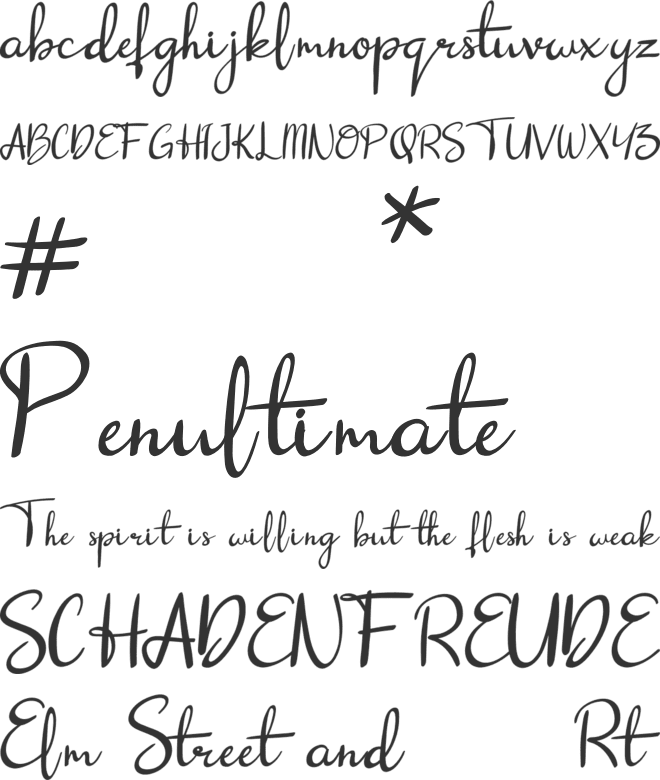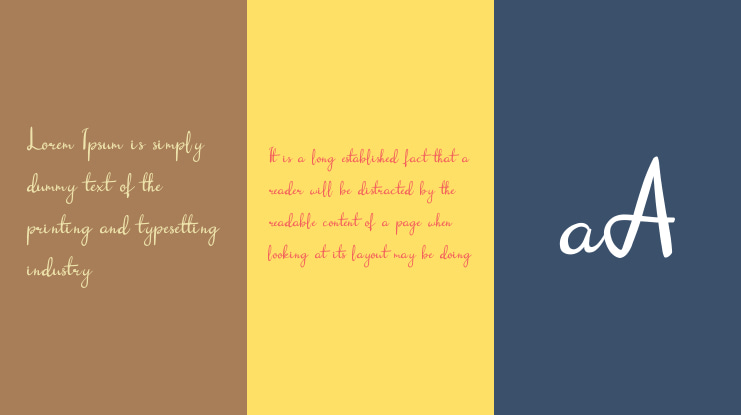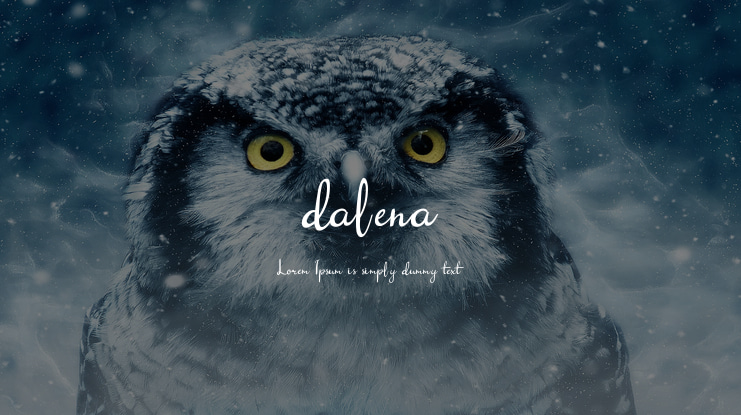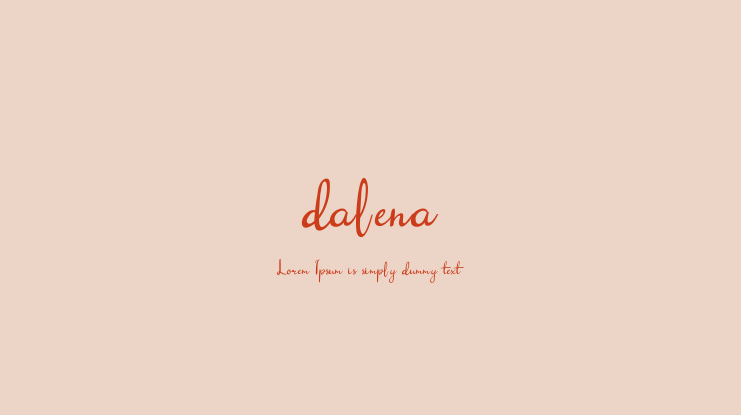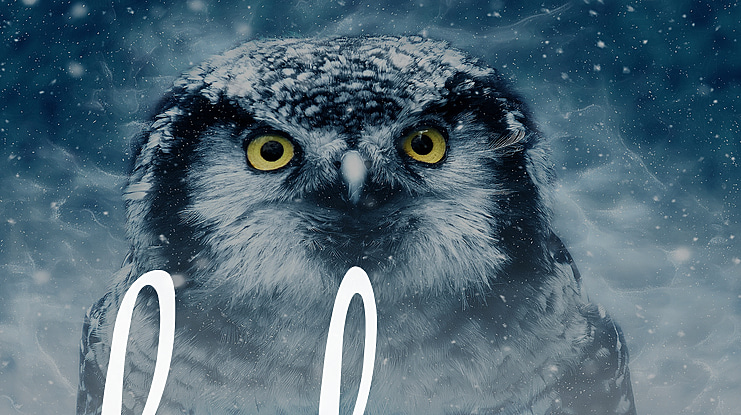
dalena Font
DETAILS Introducing the elegant new dalena Font! For those of you who are needing a touch of elegance and modernity for your designs, this font was created for you!
dalena has the added bonus of having 'multiple personalities'! It has 2 sets of extra alternate lowercase letters, which allow you to create different feels for different projects.
Features: Uppercase Lowercase Number & Symbol Alternates for each characters